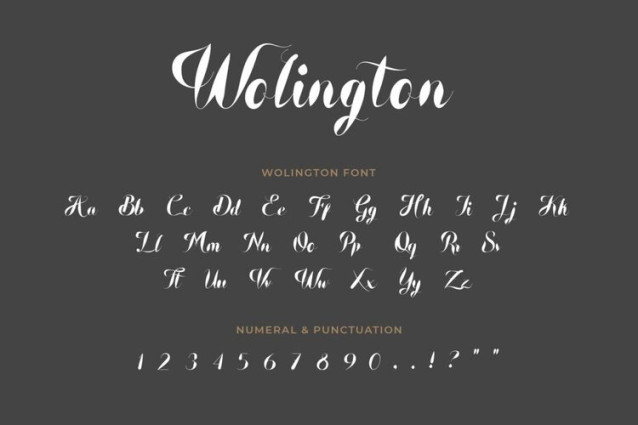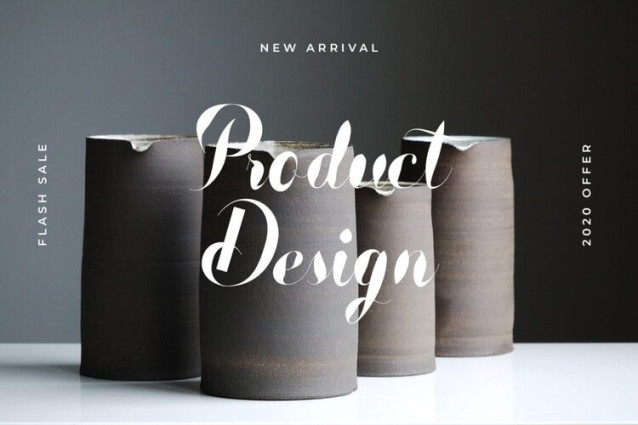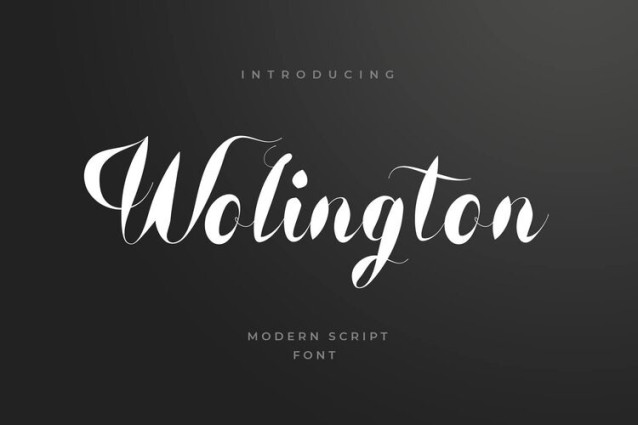
Wolington Script Sans Font is a font that has a modern script type. It has a balanced characteristic on each font, but there are thick curves in the middle and small at each end of the font, so it looks like a combination between vintage and scripts.
With a combination that looks thick and clear, making this font can be used in several fields of projects and products such as logos & branding, invitations, wedding designs, social media posts, advertisements, product packaging, craft products, labels, photography, watermarks, T-shirts, special events, and more.